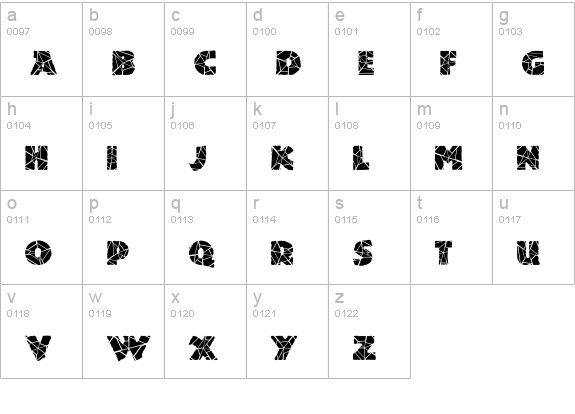
DinosuariaCracked Normal Font Details
DinosuariaCracked Normal font is a bold and edgy typeface that exudes a sense of power and strength. Its cracked texture gives it a unique and rugged look, making it perfect for projects that require a touch of raw energy. This font is ideal for headlines, posters, and branding projects where you want to make a bold statement. Best of all, DinosuariaCracked Normal font is available for free download at FontsMarket.com. You can easily add this eye-catching font to your collection without having to spend a dime. Don't miss out on the opportunity to enhance your designs with this striking typeface. Download DinosuariaCracked Normal font today and unleash its untamed energy in your creative projects.